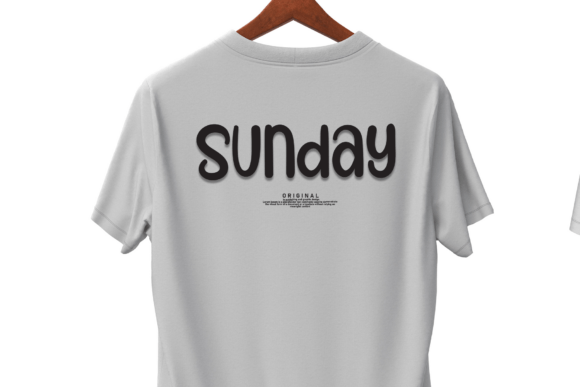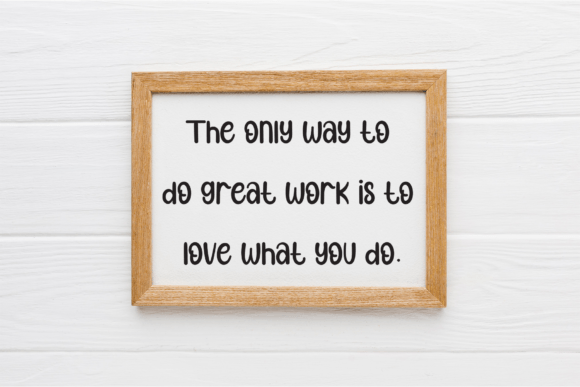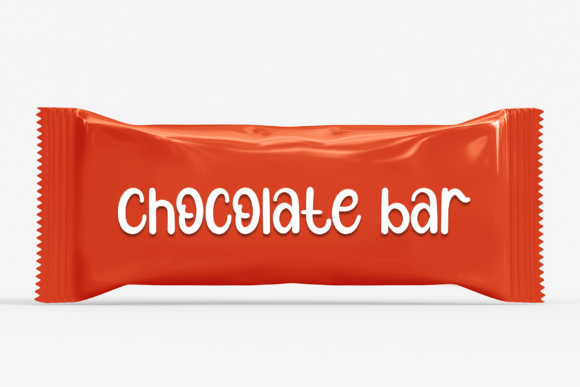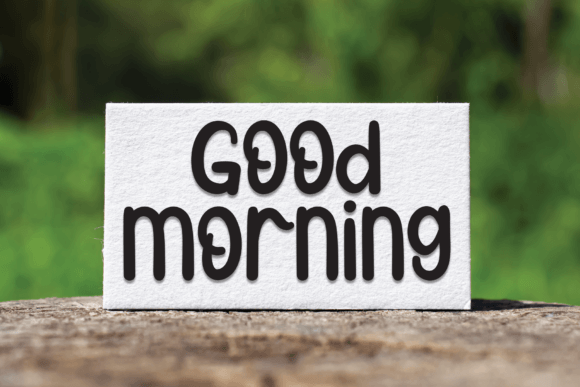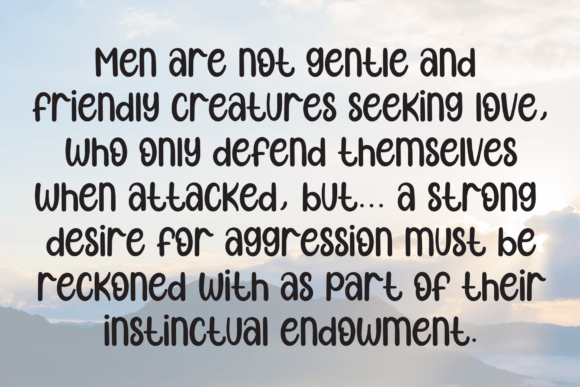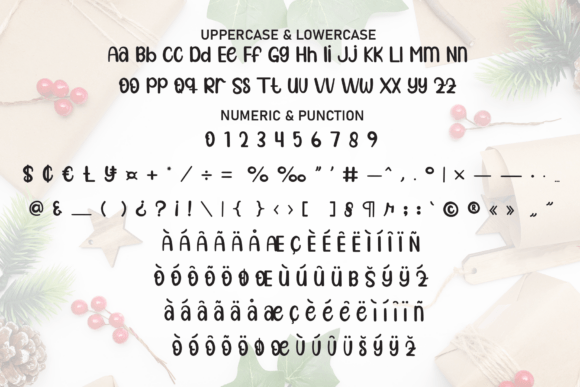
About Christmas Font: A Season of Joyful Typography
As designers, we’ve all experienced that magical moment when a font sparks an idea, igniting a wave of creativity. For me, it was the first time I laid eyes on About Christmas Font – a handwritten display font that embodies the essence of the holiday season. Its playful vibrancy and lighthearted elegance immediately captured my attention, and I knew I had to learn more.
About Christmas Font is more than just a font – it’s a key to unlocking the perfect blend of sweetness and sophistication in your designs. Whether you’re crafting wedding invitations, greeting cards, or other festive projects, this font is sure to add a touch of joy and elegance. As a designer, you’ll appreciate its versatility and the ease with which it can elevate your content into a dynamic work of art.
About Christmas Font Key Features
- Font Family: A collection of festive and playful fonts, perfect for holiday-themed designs.
- Character Count: Includes a wide range of characters, including uppercase and lowercase letters, numbers, and punctuation marks.
- Unique Characteristics: Each font in the collection features a distinct, hand-drawn style with intricate details and ornaments, adding a touch of whimsy and magic to holiday designs.
About Christmas Font Review
Overall, I think About Christmas Font is a nice addition to any holiday-themed project. Here are some things that really work well:
- ✨ Unique and festive design: The font has a fun, whimsical feel to it that’s perfect for Christmas-themed projects.
- ✨ Wide range of characters: The font includes a wide range of characters, including numbers, punctuation, and even some festive symbols.
- ✨ Easy to read: Despite its decorative nature, the font is still easy to read, even at smaller sizes.
- ⚠️ Limited language support: The font only supports Latin characters, which may limit its use in certain projects.
- ⚠️ Not suitable for body text: While the font is great for titles and headings, it may not be the best choice for body text due to its decorative nature.
Overall, I think About Christmas Font is a fun and festive addition to any holiday-themed project. While it may have some limitations, it’s a great choice for titles, headings, and other decorative text. Just be sure to use it in moderation and pair it with a more readable font for body text.
Some common use cases for the Christmas Font include:
- Creating holiday cards and invitations.
- Designing Christmas-themed social media graphics.
- Adding festive touches to marketing materials and websites.